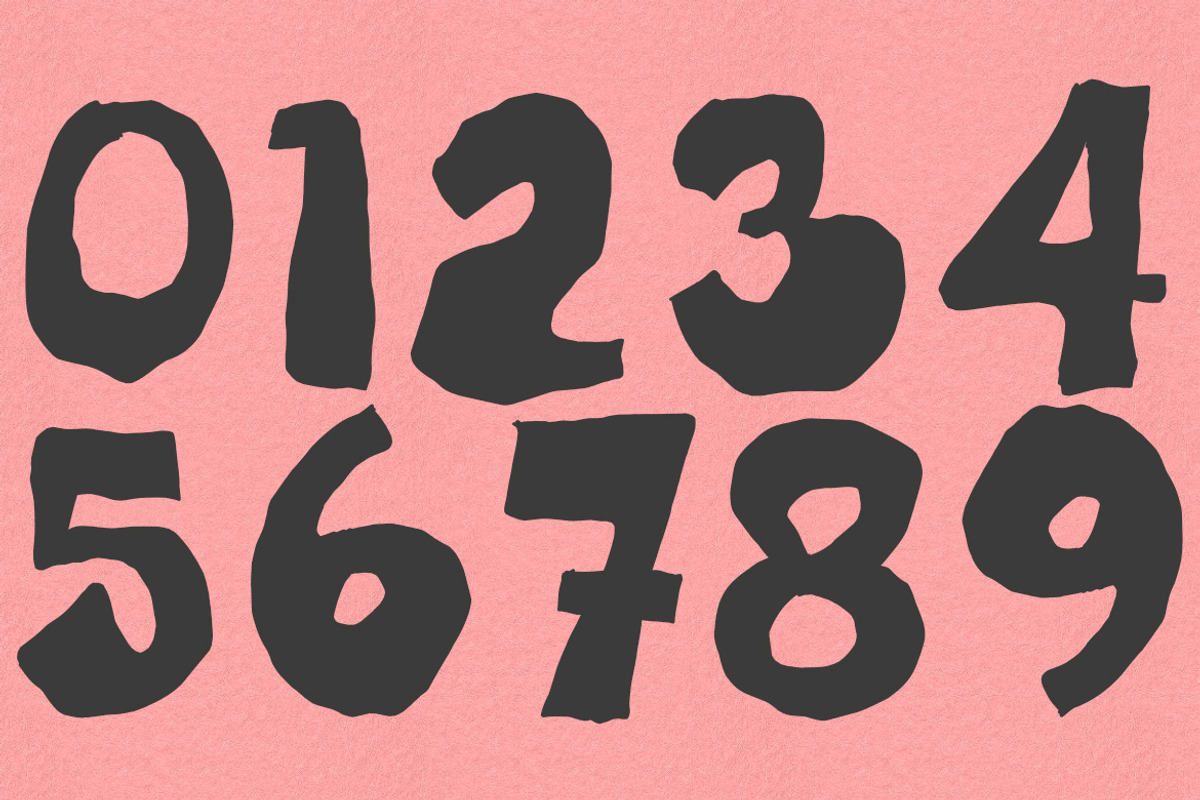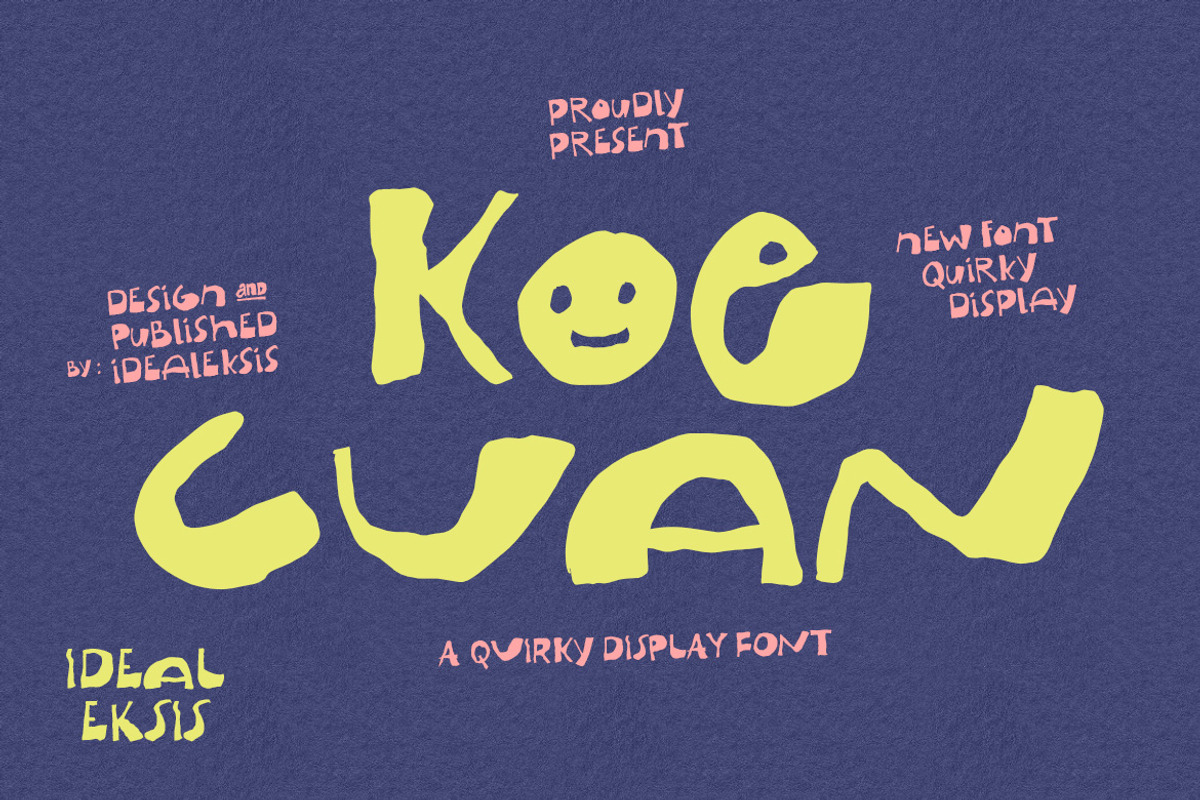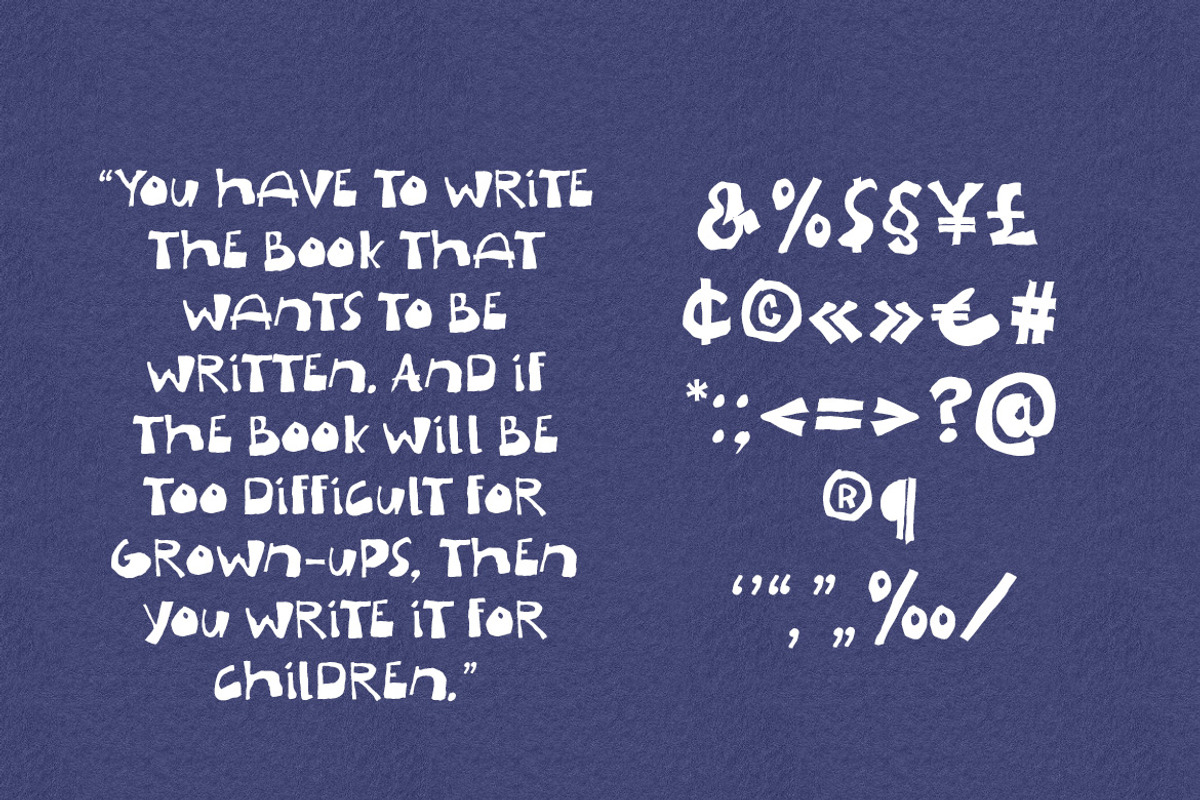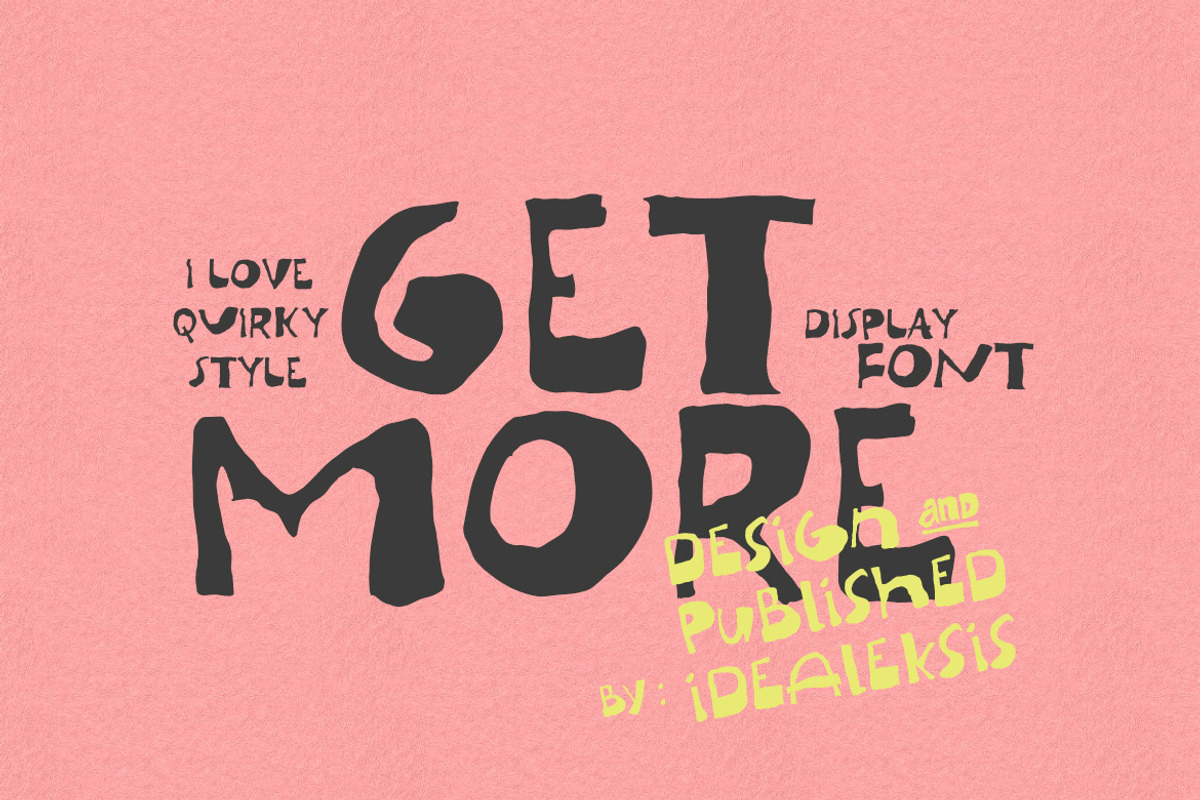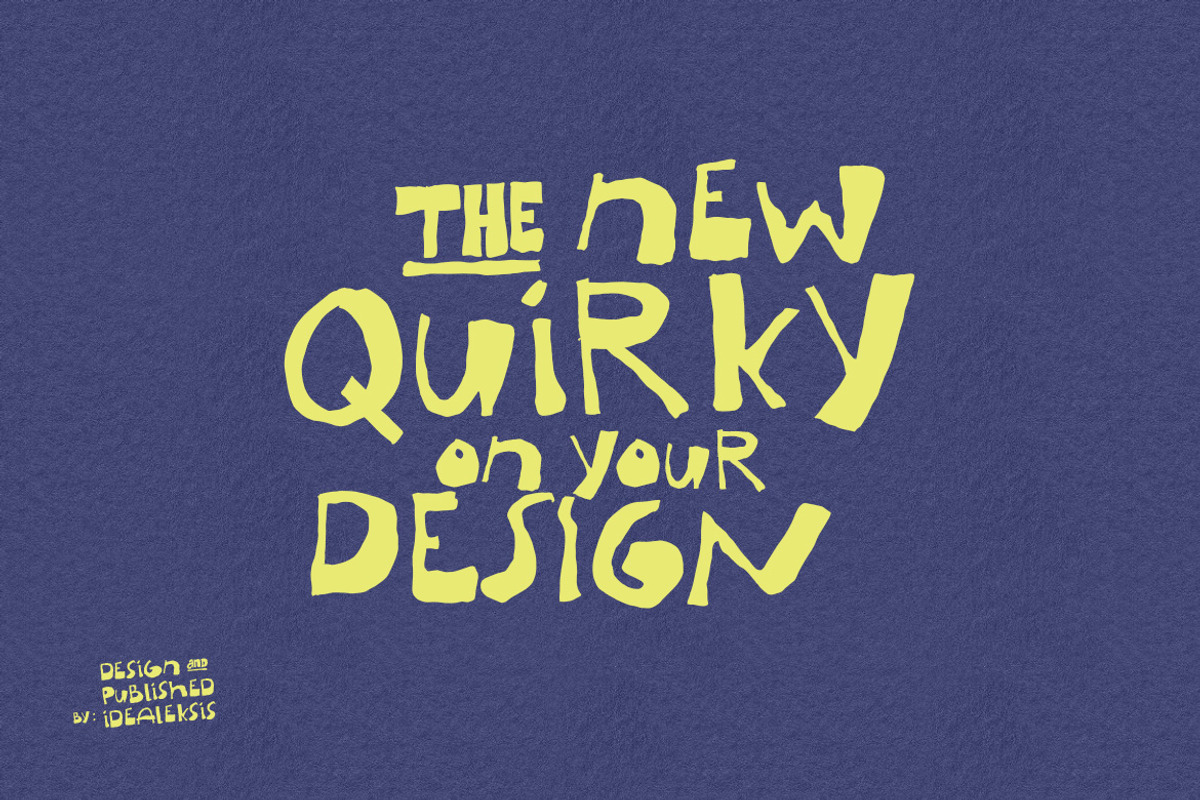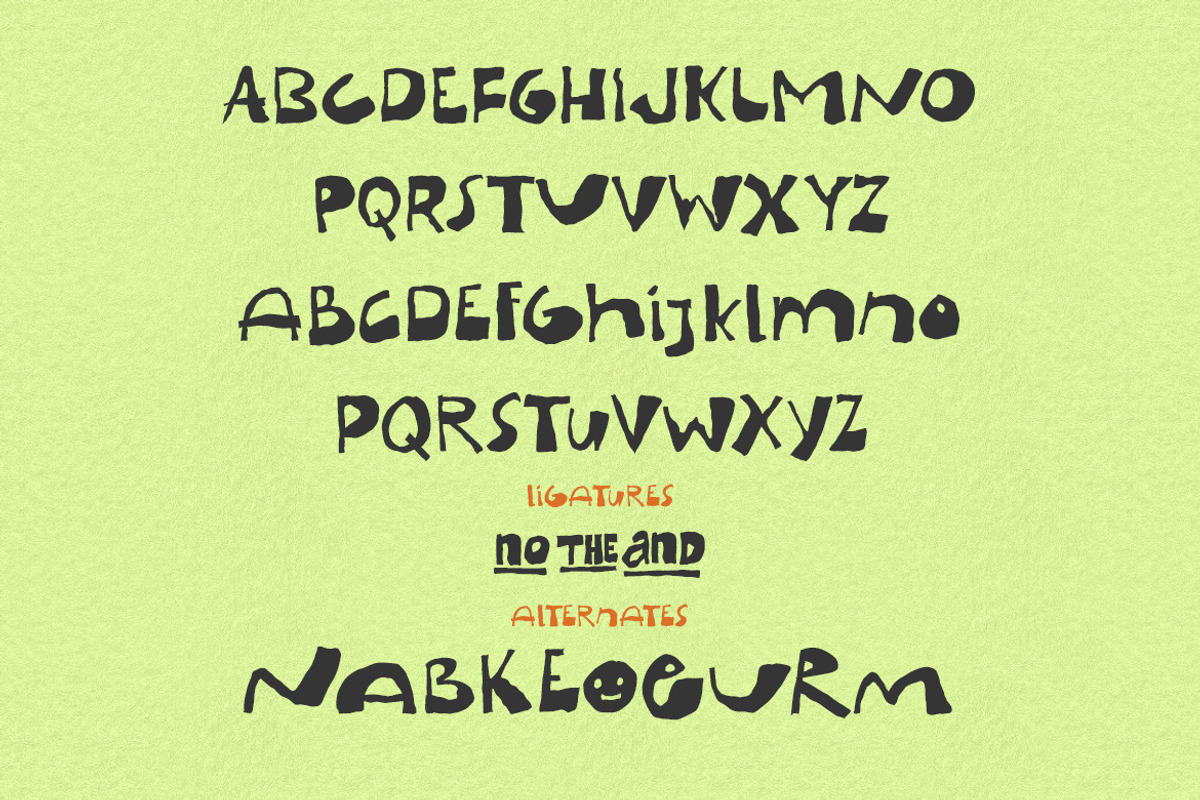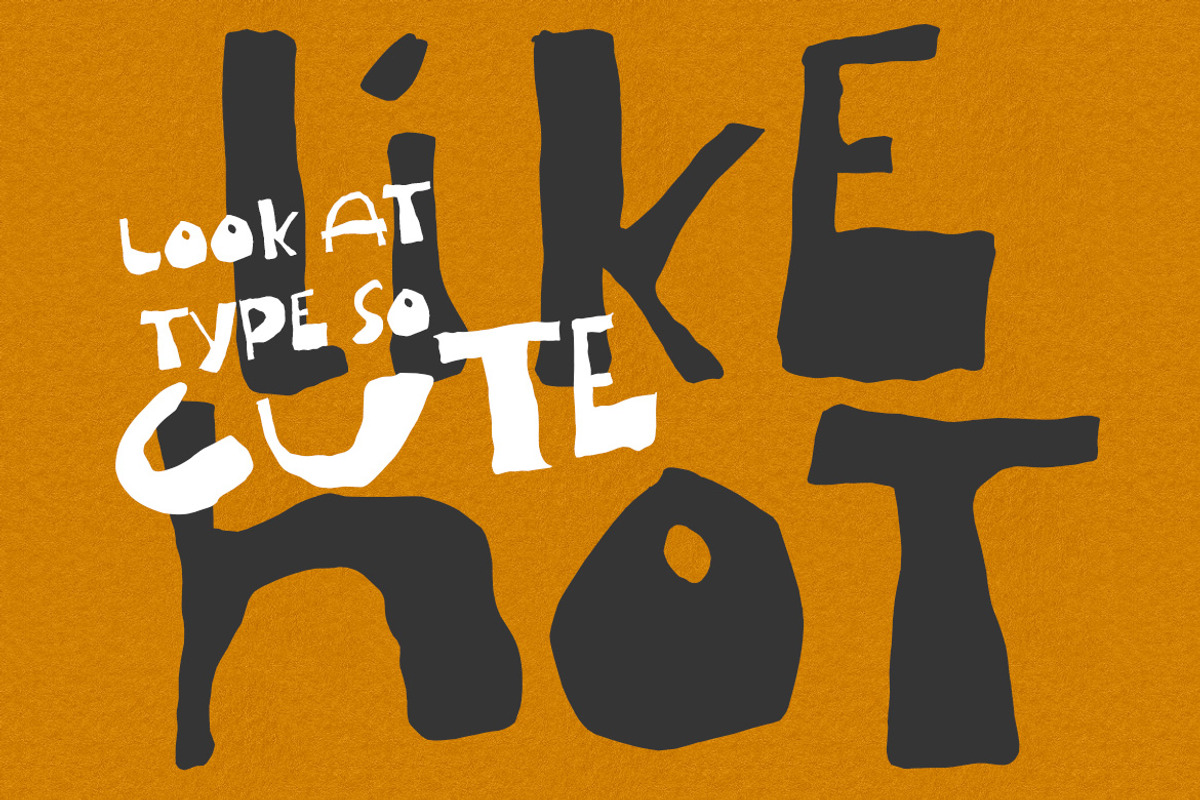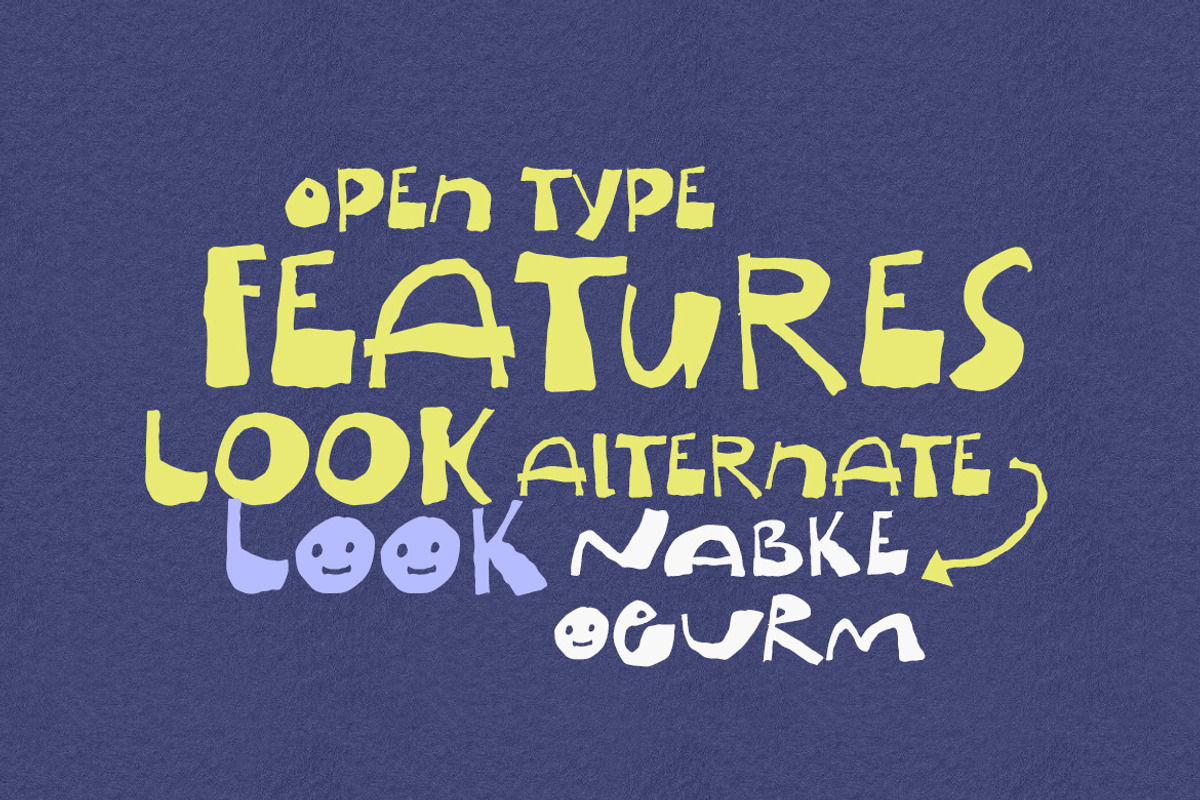
Koe Cuan - Handmade font
This font showcases irregular, hand-drawn letterforms with a heavy, bold weight and organic stroke variation. The characters exhibit a playful, spontaneous energy with blunt terminals and a bouncy baseline that defies traditional alignment. A standout feature is the integration of illustrative elements, such as the smiley face within the 'o', which enhances its whimsical character. The overall aesthetic is informal and high-impact, making it ideal for creative posters, children's media, and expressive branding projects.
Uppercase (All Caps)
Alternate
Numerals